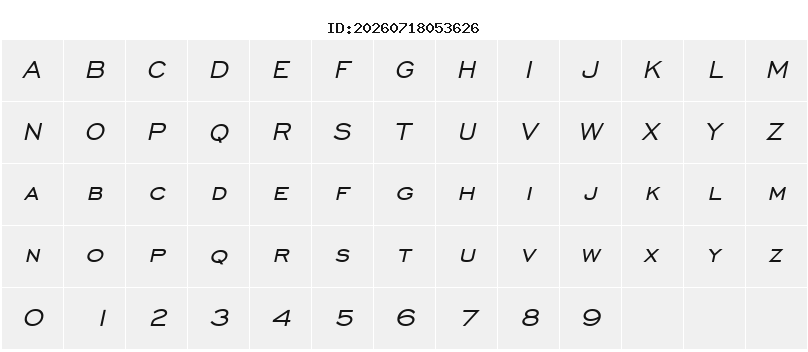
• Font Name: Chisel
Chisel.ttf is a modern, elegant sans-serif font designed for ultimate readability and visual harmony. Perfect for branding, headlines, web design, and print materials.